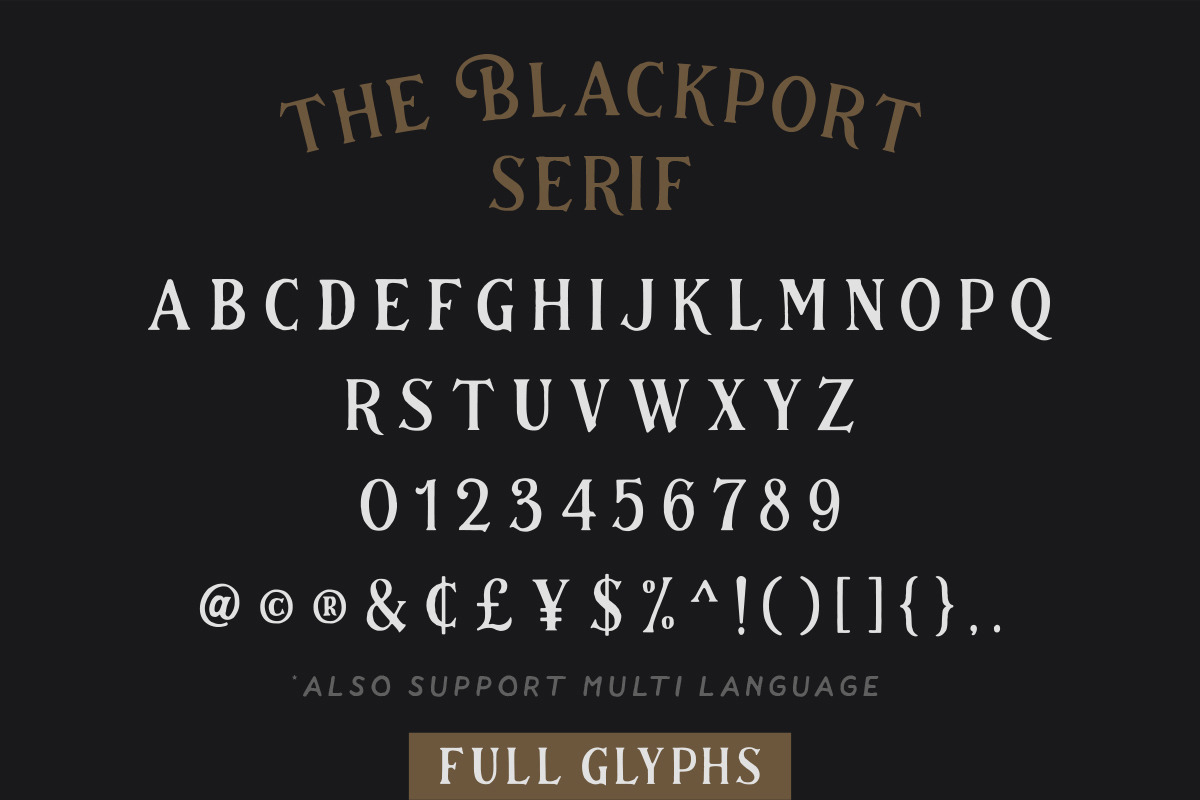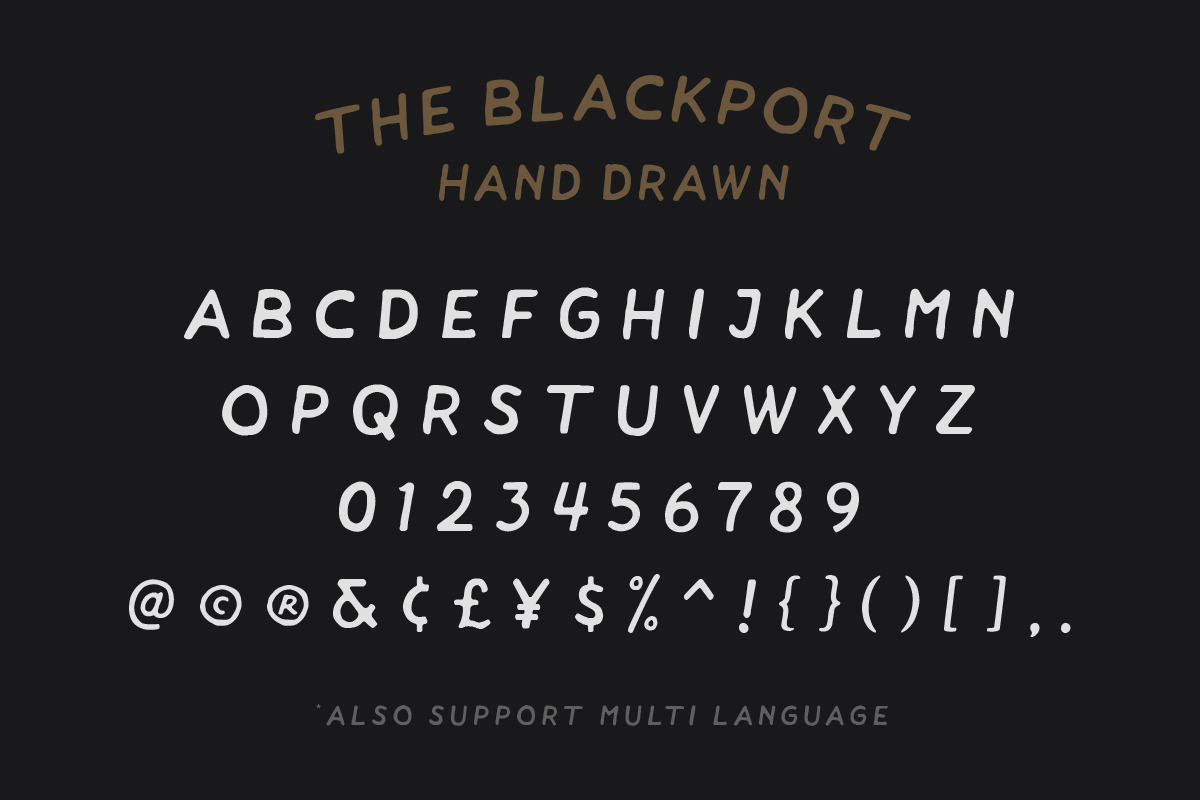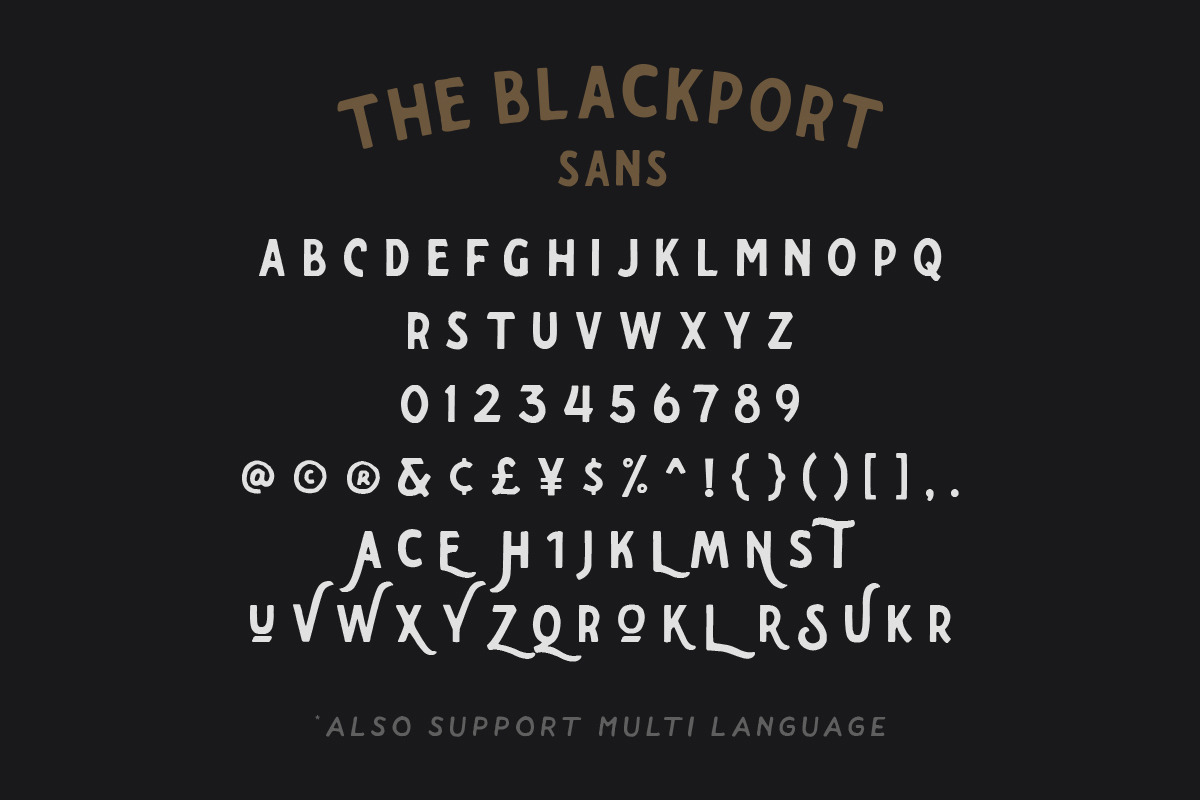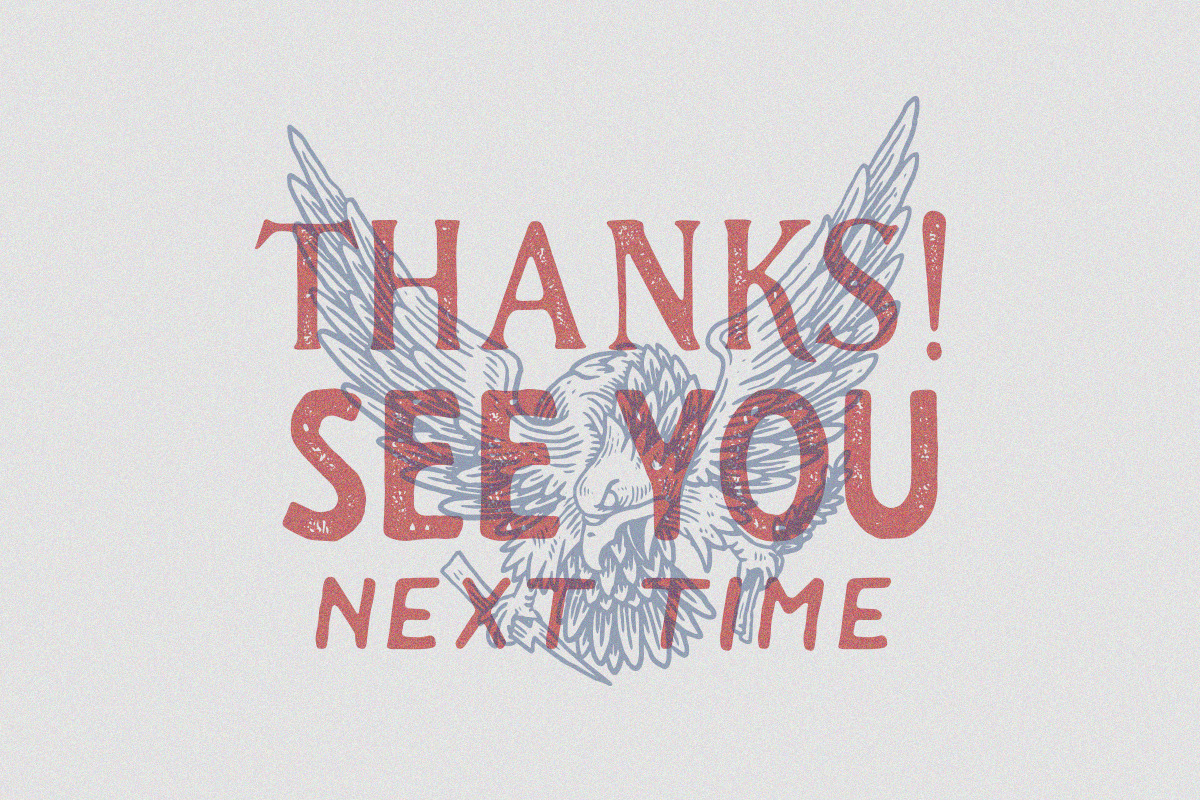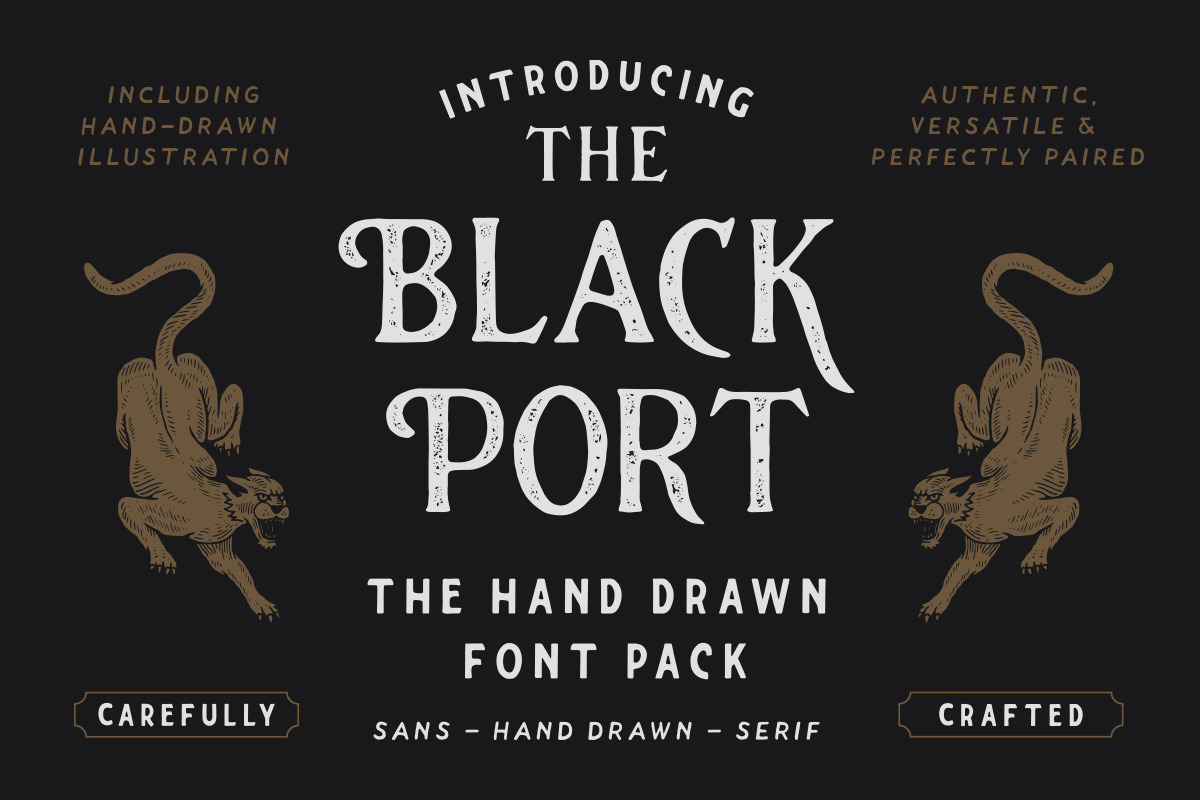
The Blackport Font Pack! (+EXTRA)
Introducing! The Blackport Font Pack!
The Blackport Font Pack! is a Hand Drawn Font Pack. This Fonts gives a feel of vintage, classic, old, handmade looked like. Also come with FREE Various illustrations and Logo pack to make better design. This font also already PUA Encoded and I think this font is perfect for people looking for vintage aesthetic or Hand Made font. Come with 2 font styles, Regular and Stamp (Except The Blackport hand-drawn). Suitable for any graphic designs such as branding materials, t-shirt, print, label, logo, poster, t-shirt, photography, quotes .etc